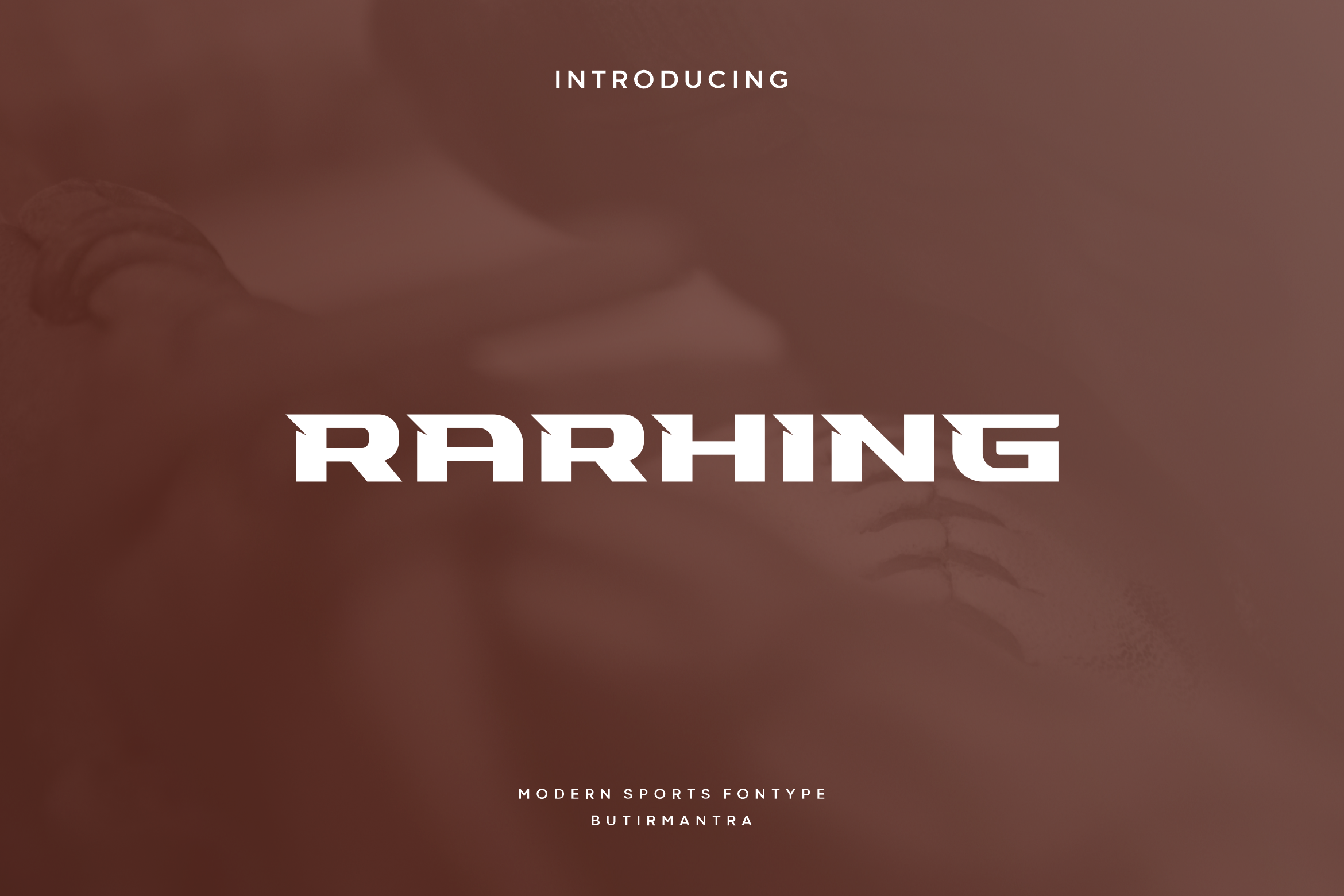
Rarhing - Modern Display Typeface
Rarhing is a simple and modern display font. This font have a distinct appeal that manages to effortlessly combine the formal look with a more playful one. Use this font for your designs and explore its endless possibilities. Rarhing was created with sports designers and their usages of type in mind, so you could utilize this font on each sports’ jersey to really tie things together!